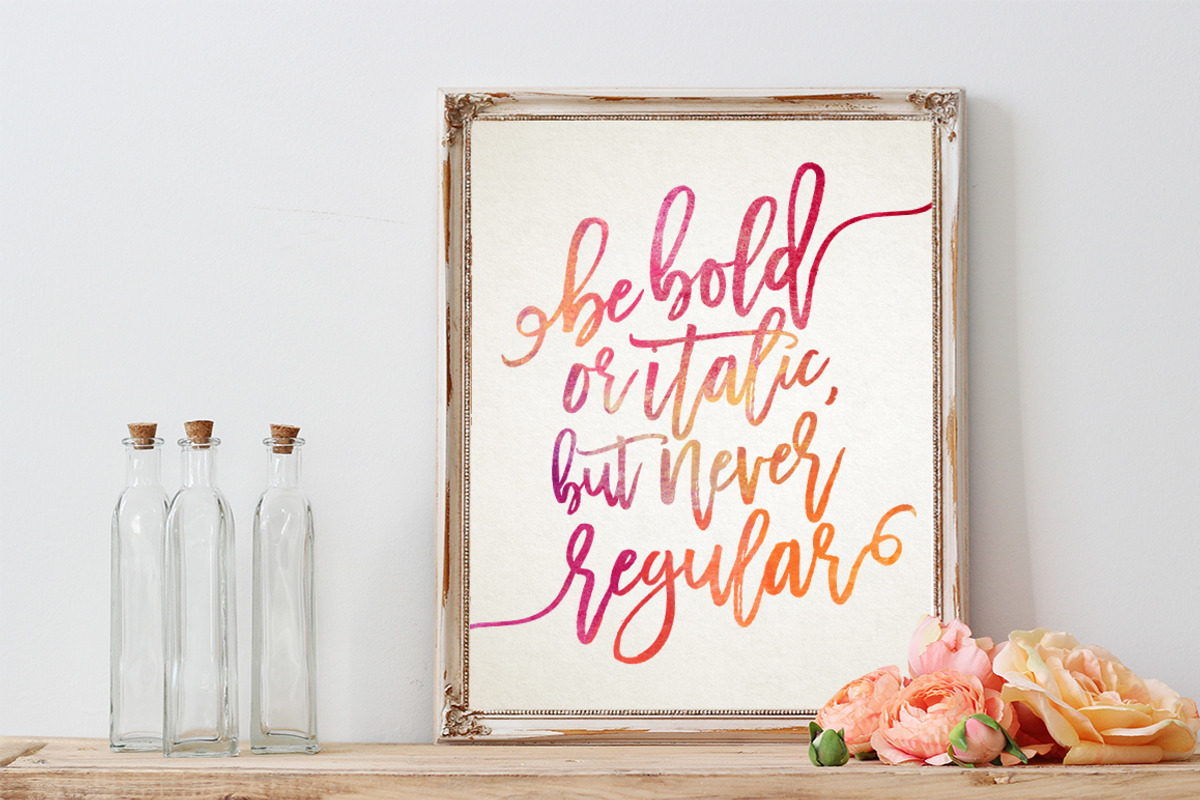
Thanks for checking out Madina Script! A fabulously fun yet elegant script font with tons of energy, allowing you to create beautiful hand-made typography in an instant. With extra bouncy curves & loops, Madina Script is guaranteed to make your text stand out – perfect for logos, printed quotes, invitations, cards, product packaging, headers and whatever your imagination holds.
What’s really awesome is that Madina Script comes with a complete set of lowercase alternates, which allows you to create even more authentic custom-feel text. Another great feature is the bonus ornaments font, which allows you to add some really unique and elegant finishing touches to your script text.
★ New Update • Madina Clean! Madina Script has now been updated to include 2 styles; a rough, textured brush version, and a totally clean & smooth version. This gives you the option to completely switch the style of your font at the click of a mouse, whether you’re looking for a more rustic, hand-made style, or a silky smooth finish.
1. Madina Script • A handwritten script font containing upper & lowercase characters, numerals and a large range of punctuation.
2. Madina Script Alt • This is a second version of Madina Script, with a completely new set of both lowercase characters. If you wanted to avoid letters looking the same each time to recreate a custom-made style, or try a different word shape, simply switch to this font for an additional layout option.
3. Madina Script Ornaments • This includes 30 hand-drawn elements, including end-swashes for first and last letters, olive branches and flourishes.
4. Madina Clean, Madina Clean Alt & Madina Clean Ornaments • Clean versions of the above 3 fonts, with the rough brush texture removed and replaced with a completely smooth edge.